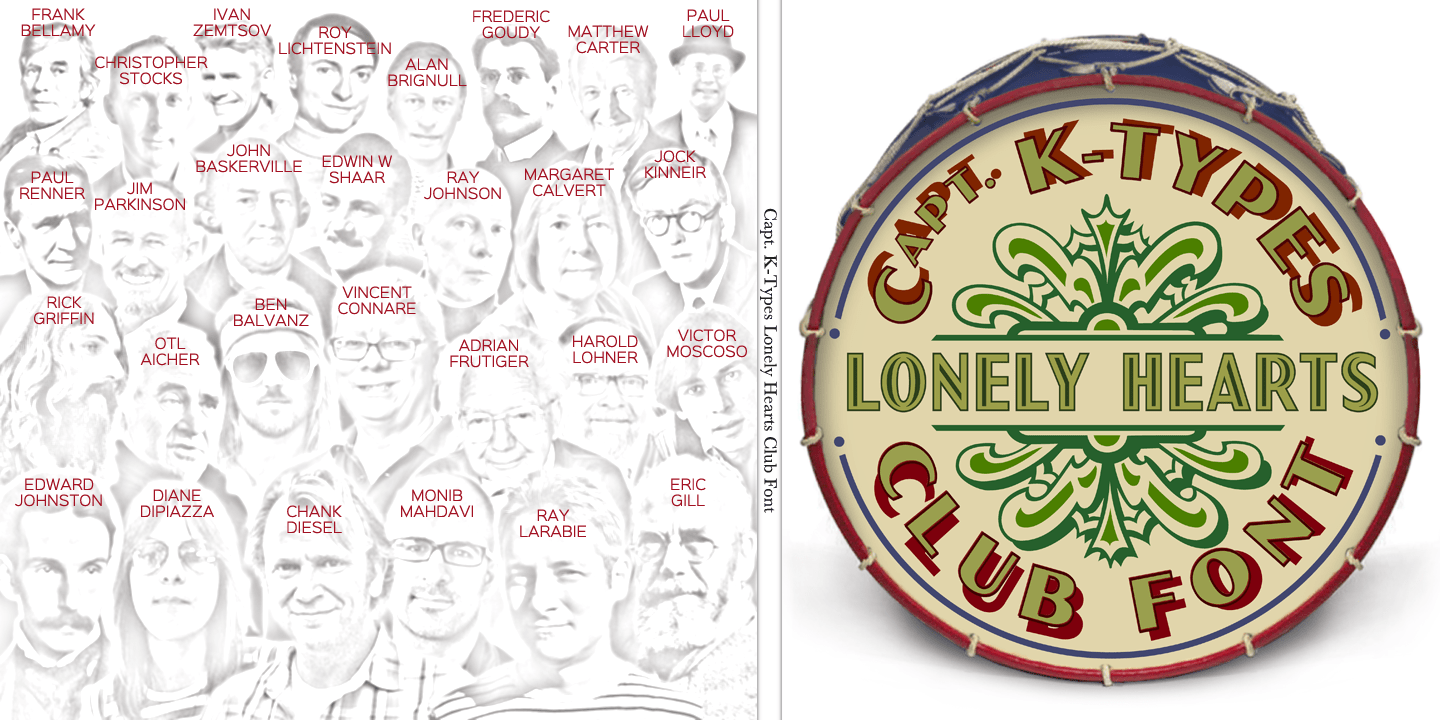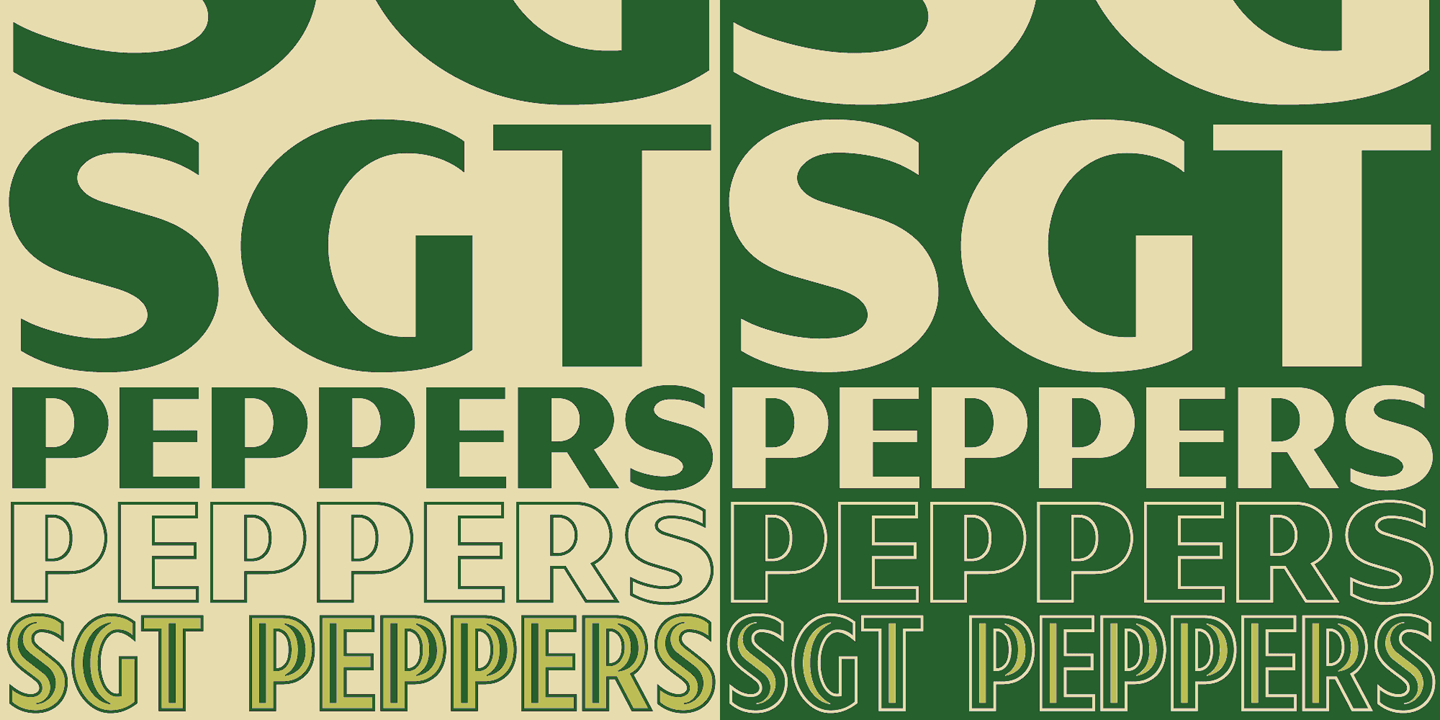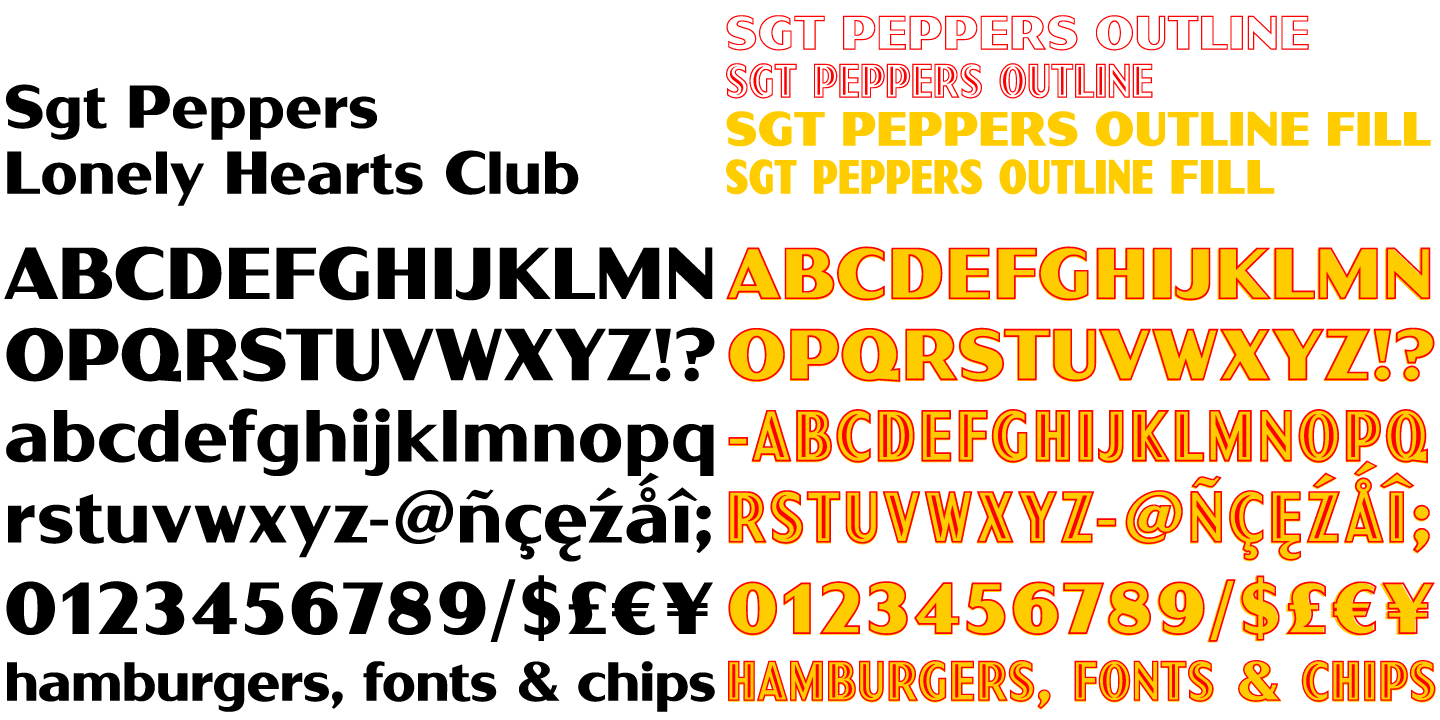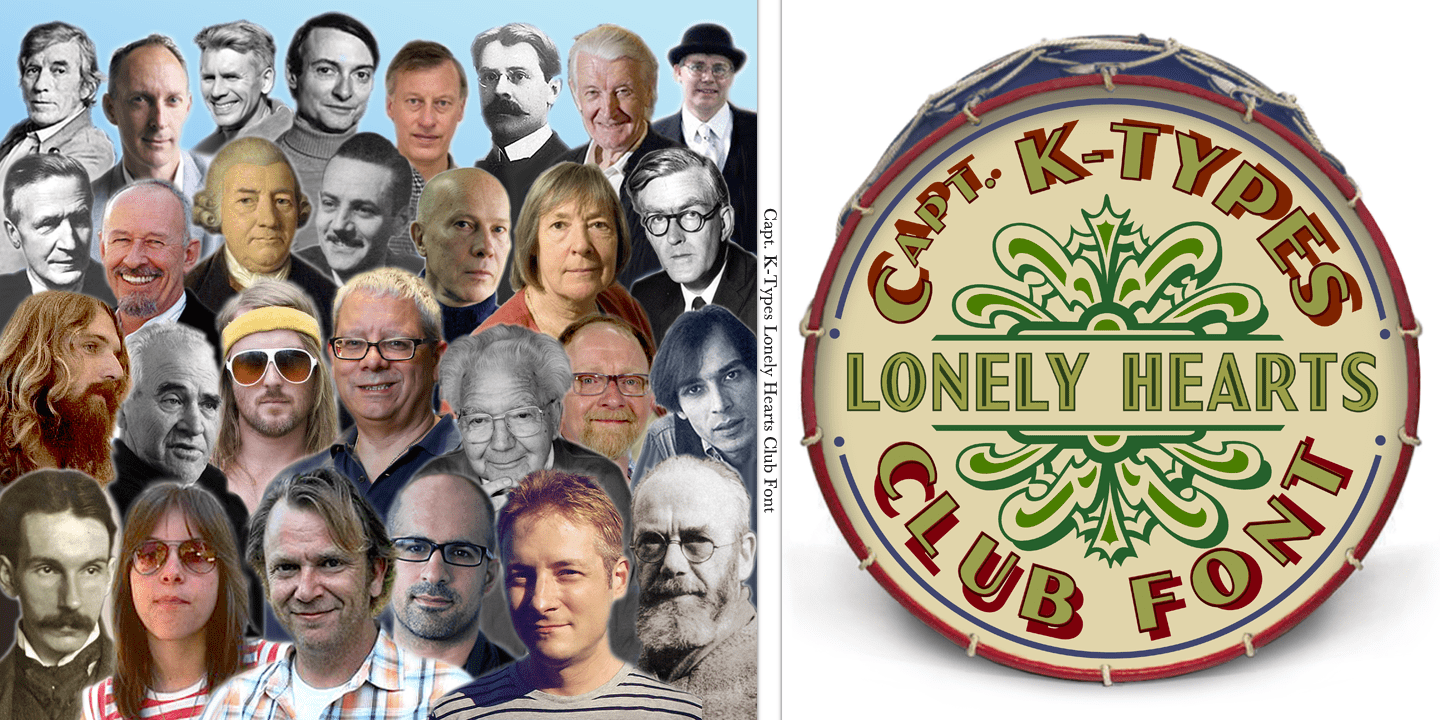
Sgt Peppers
Sgt Peppers Lonely Hearts Club is a font inspired by the capital letters on the bass drum in the Beatles? Sgt Pepper album cover. The original lettering was hand painted by fairground artist Joe Ephgrave during March 1967 in an art deco style he called…